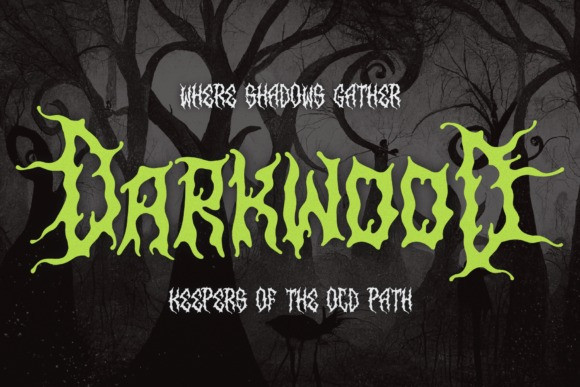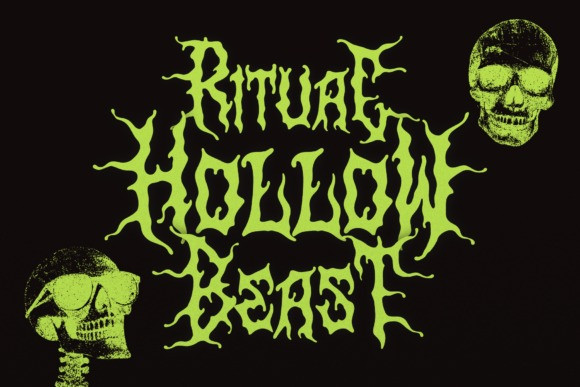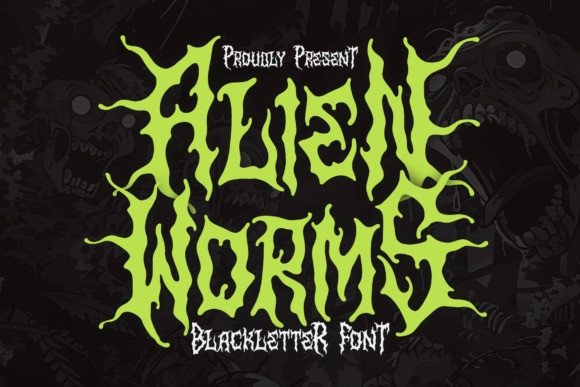
Alien Worms Font
Alien Worms Font a wildly expressive blackletter display font. This sci-fi horror typeface features distorted, high-impact letters uniquely characterized by root-like creepers, sprawling bio-organic tentacles, and jagged melting edges that bridge the gap between retro comic book monster titles and modern brutalist streetwear graphics. With its aggressive structural weight and unapologetic death-metal stance, Alien Worms is the premier choice for independent alternative apparel branding, heavy music festival banners, custom skate deck prints, boutique energy drink labels, and high-impact social media headlines.